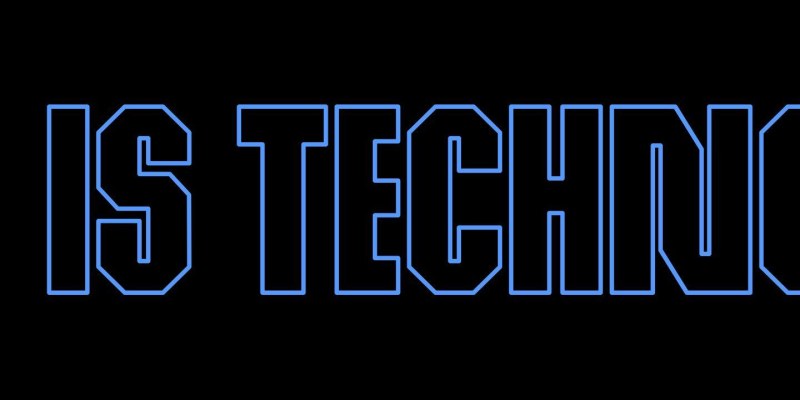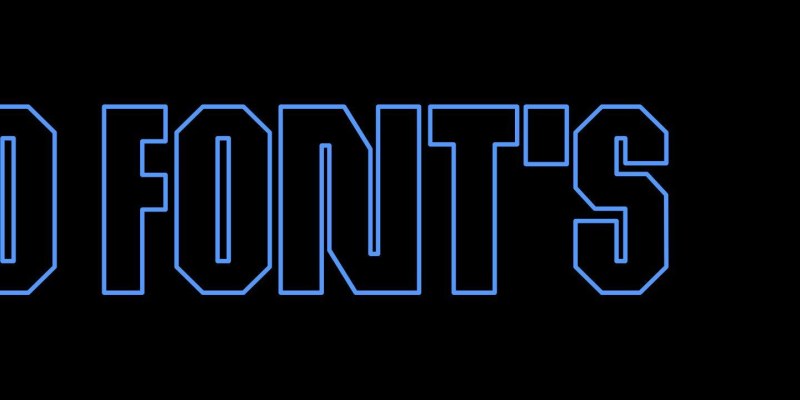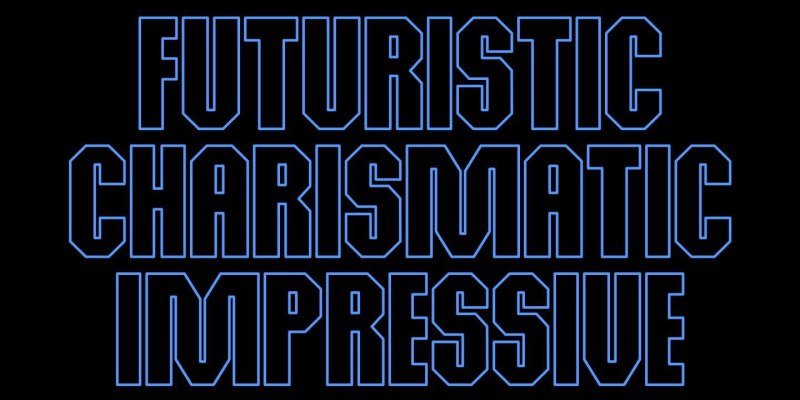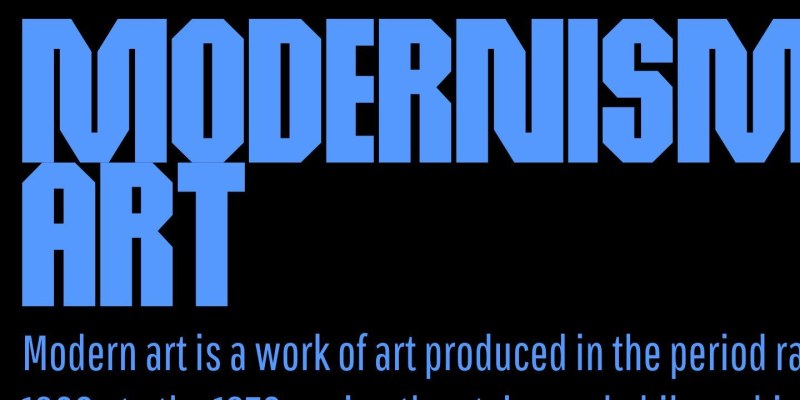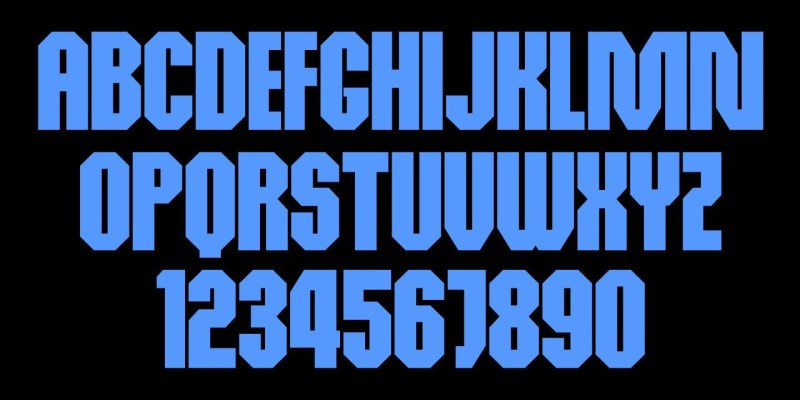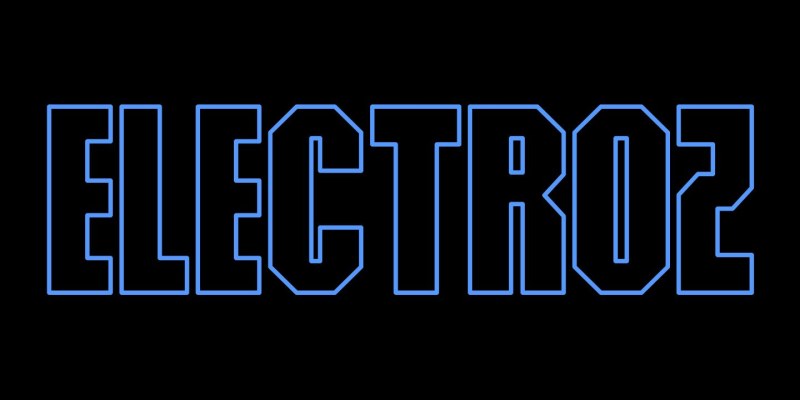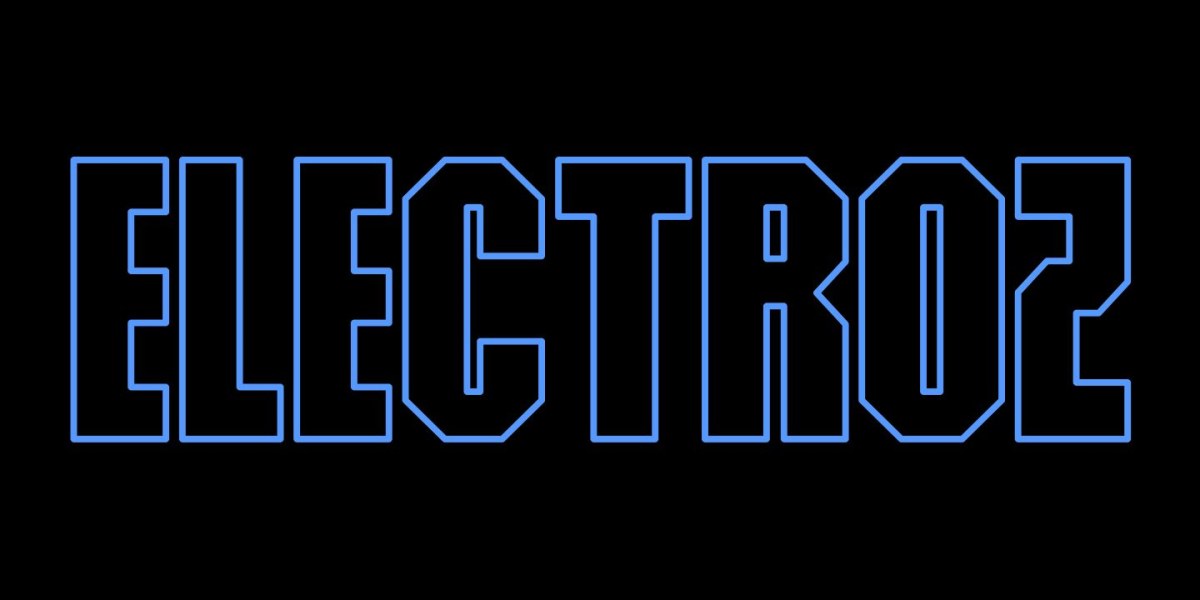
Electroz Font Family
Electroz font is a techno themed font made with futuristic values, made with condensed width and slanted cuts at the corners of the letters making this font look cool and have a strong futuristic value. suitable for use in futuristic-themed designs.
Where Electroz Font Family works best
Complete brand systems
With multiple weights, Electroz Font Family can carry a whole identity — logo, headings, body copy and captions — consistently across print and web.
Websites & apps
Families let you set hierarchy with weight instead of switching typefaces, which keeps interfaces fast and coherent.
Print collateral
Brochures, catalogues and business cards benefit from a family that covers display and text sizes.
What is Electroz Font Family good for?